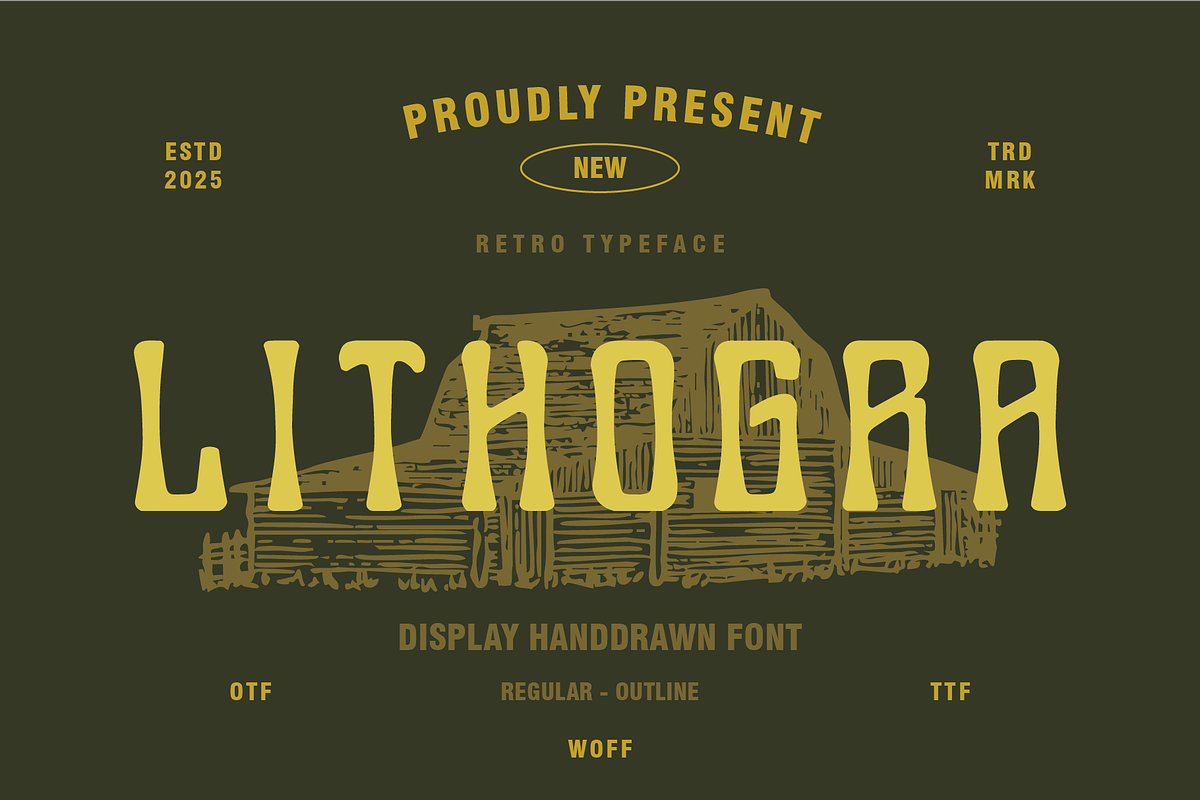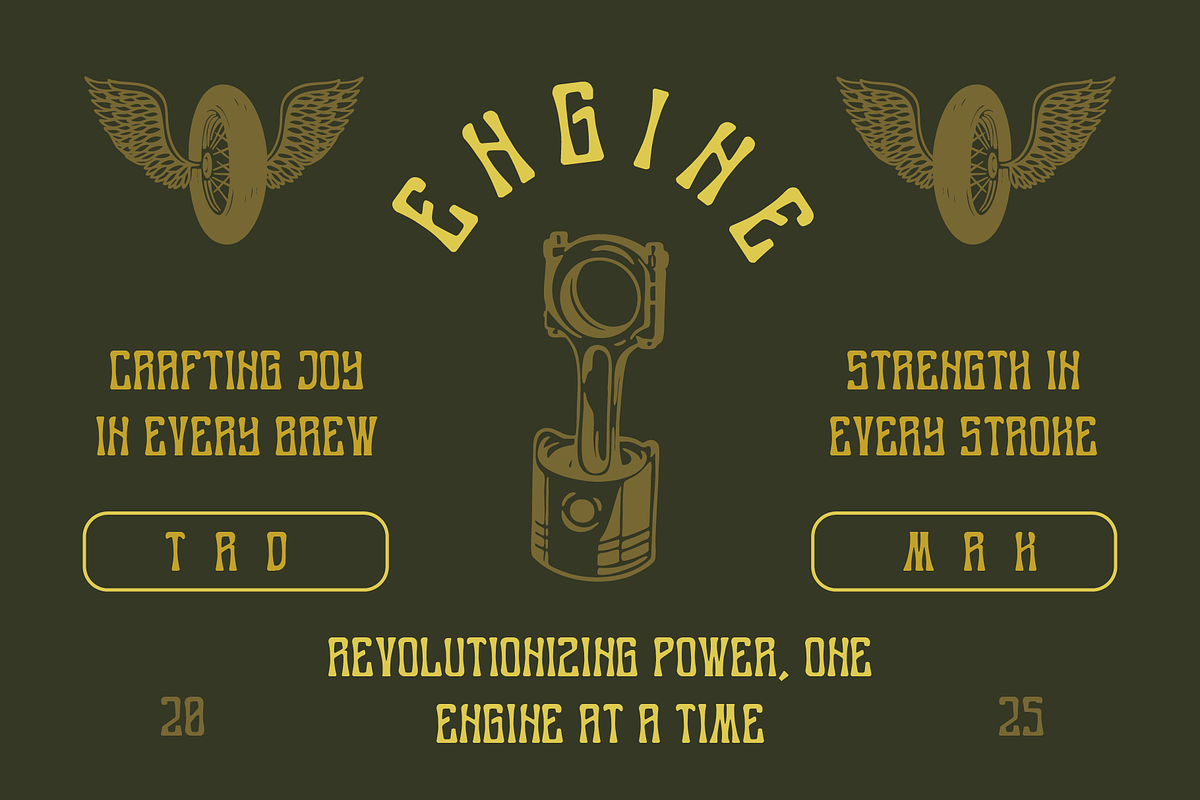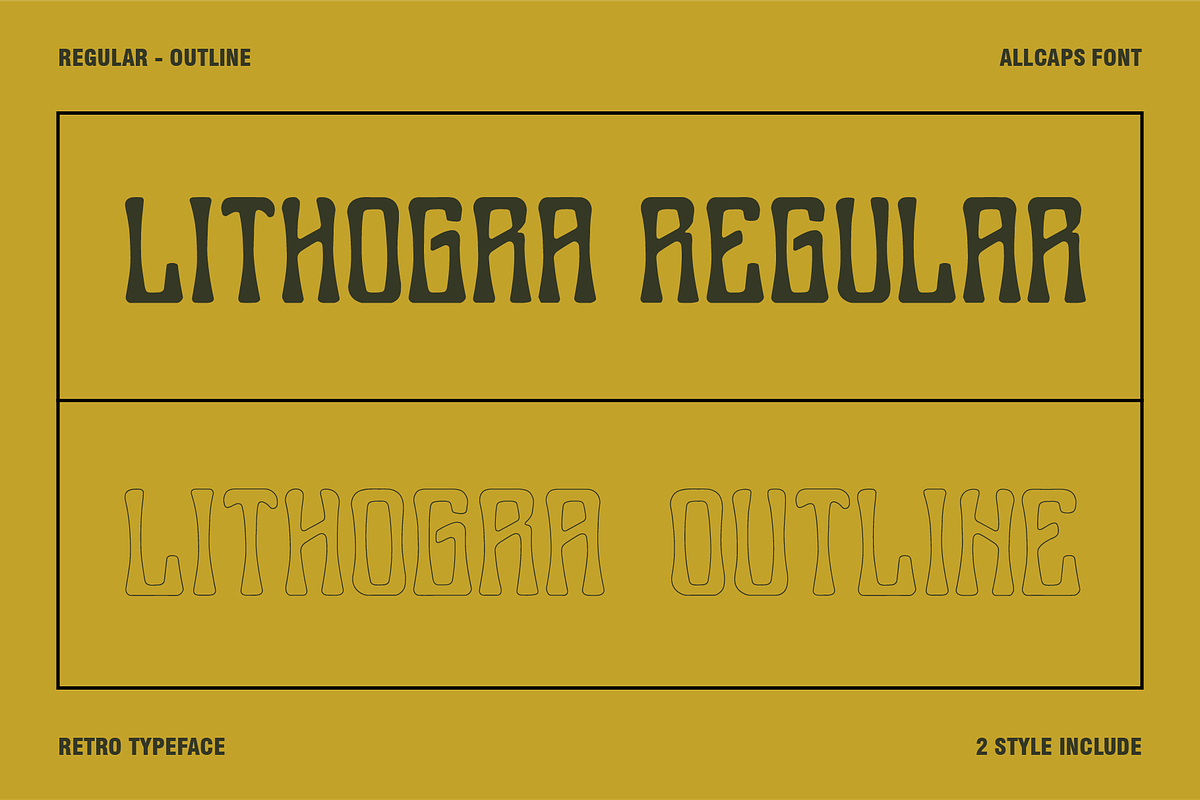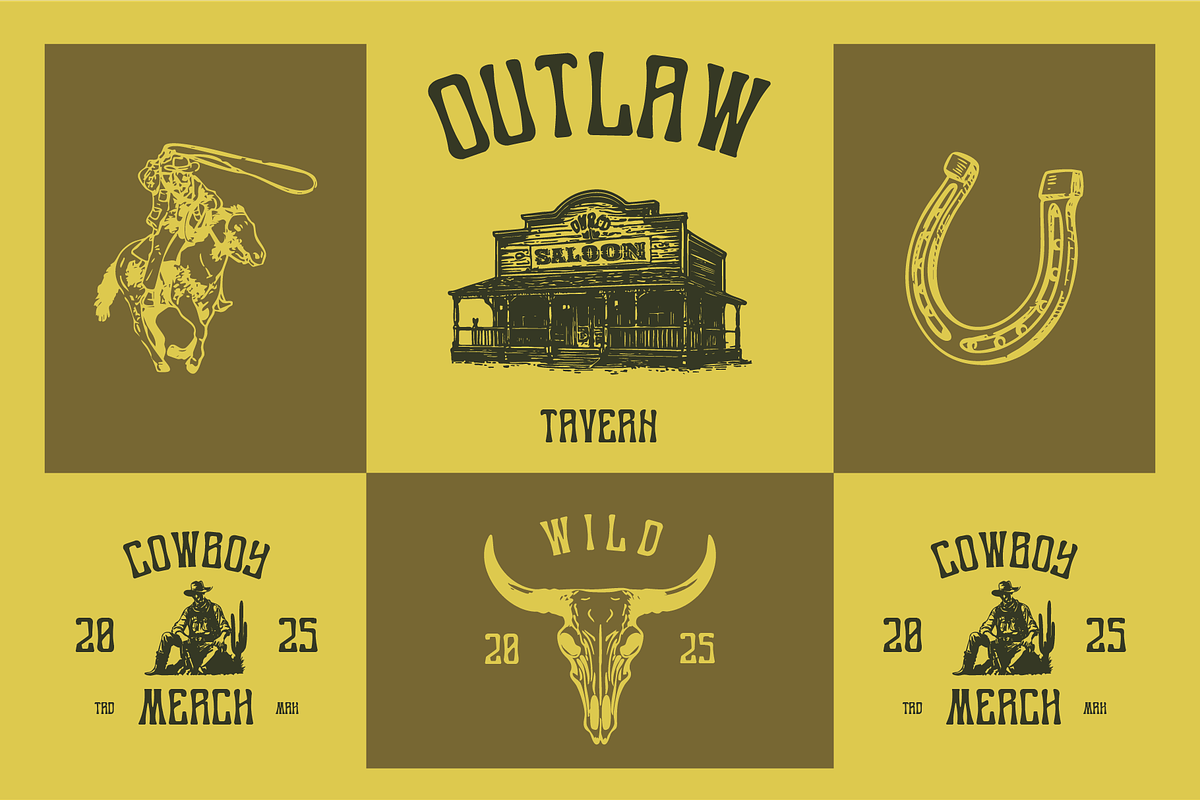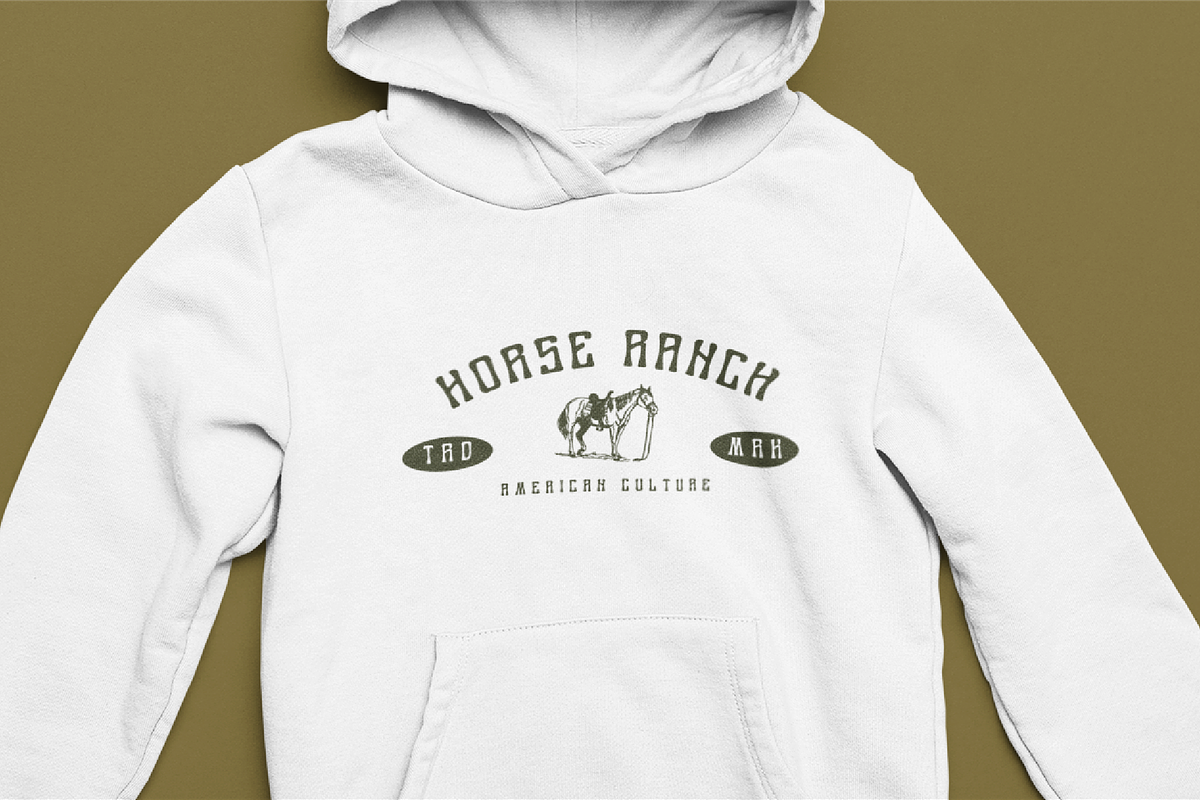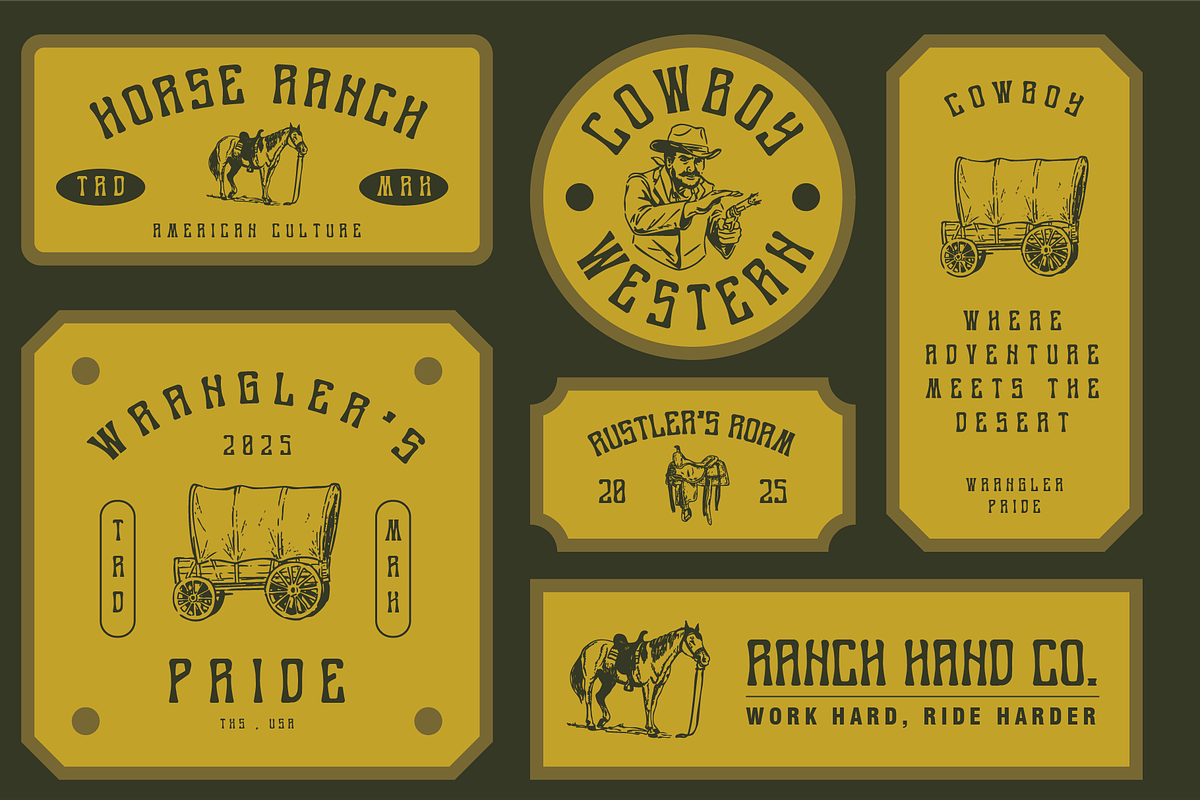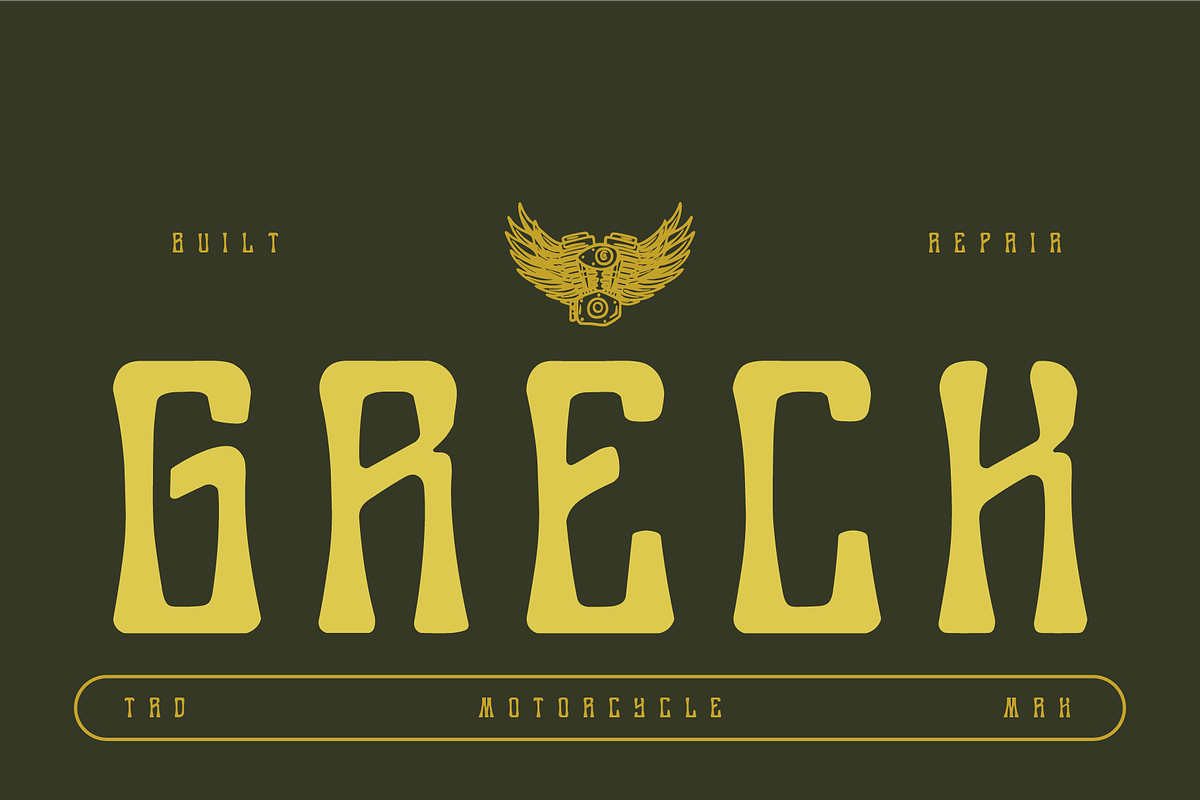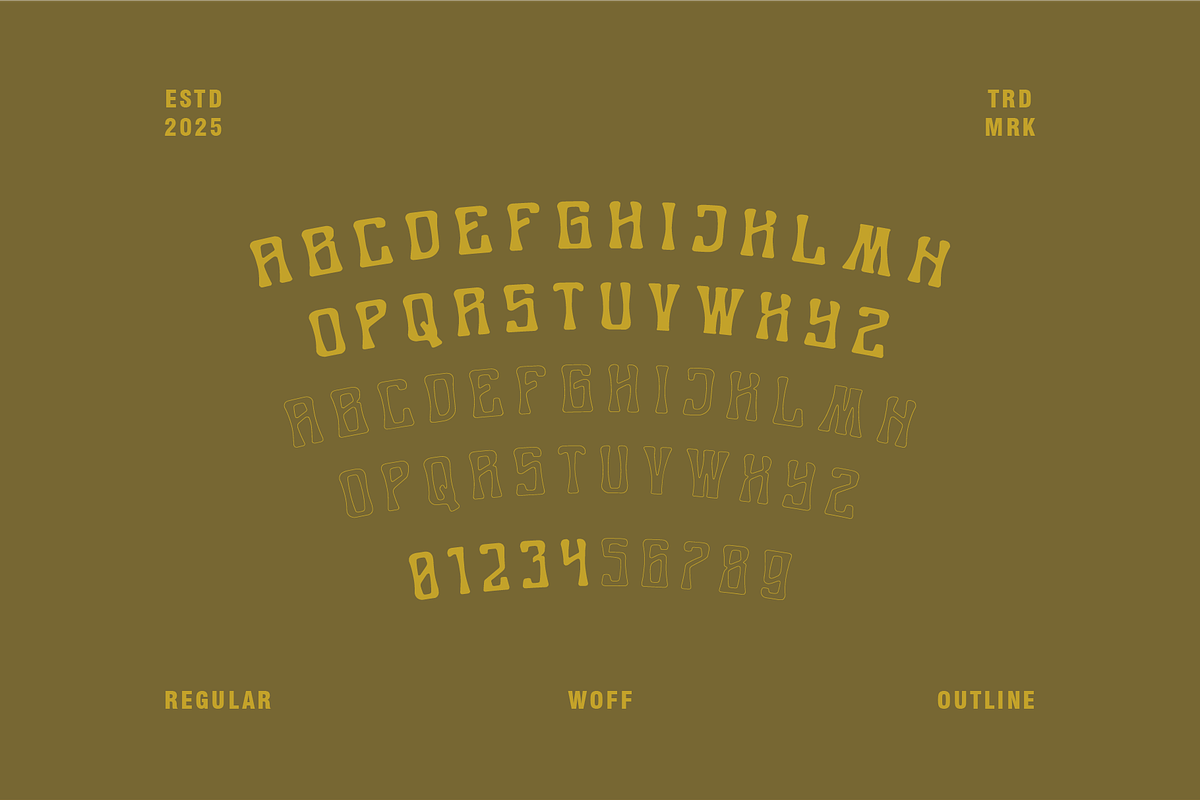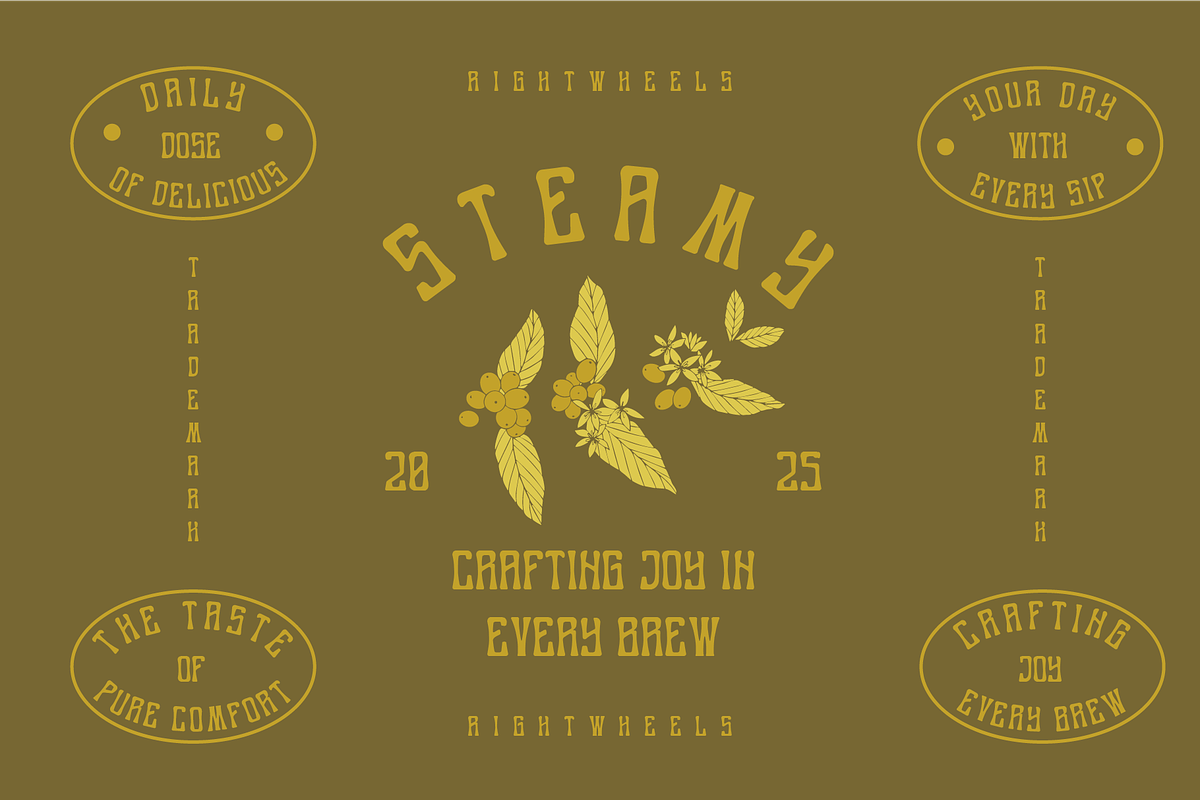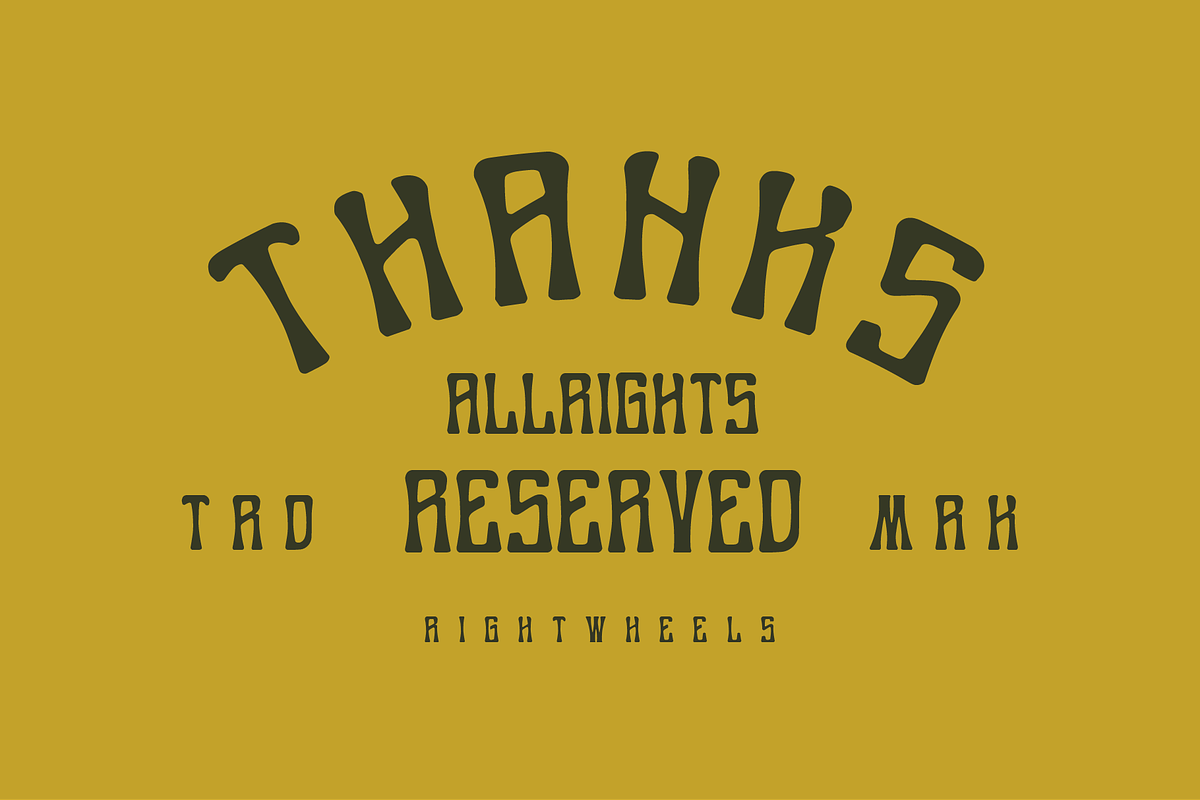
LITHOGRA - Retro Typeface
Lithogra is a retro vintage font that channels the essence of classic design with a nostalgic twist. Its bold, geometric shapes and elegant curves reflect the timeless beauty of mid-century typography, while its unique character brings a fresh, vintage vibe to modern projects. Perfect for branding, packaging, and headlines, Lithogra captures the spirit of a bygone era while offering versatility and readability. Whether used for large display text or subtle details, Lithogra exudes a sense of style and sophistication, making it ideal for anyone looking to evoke a sense of the past in a contemporary setting.